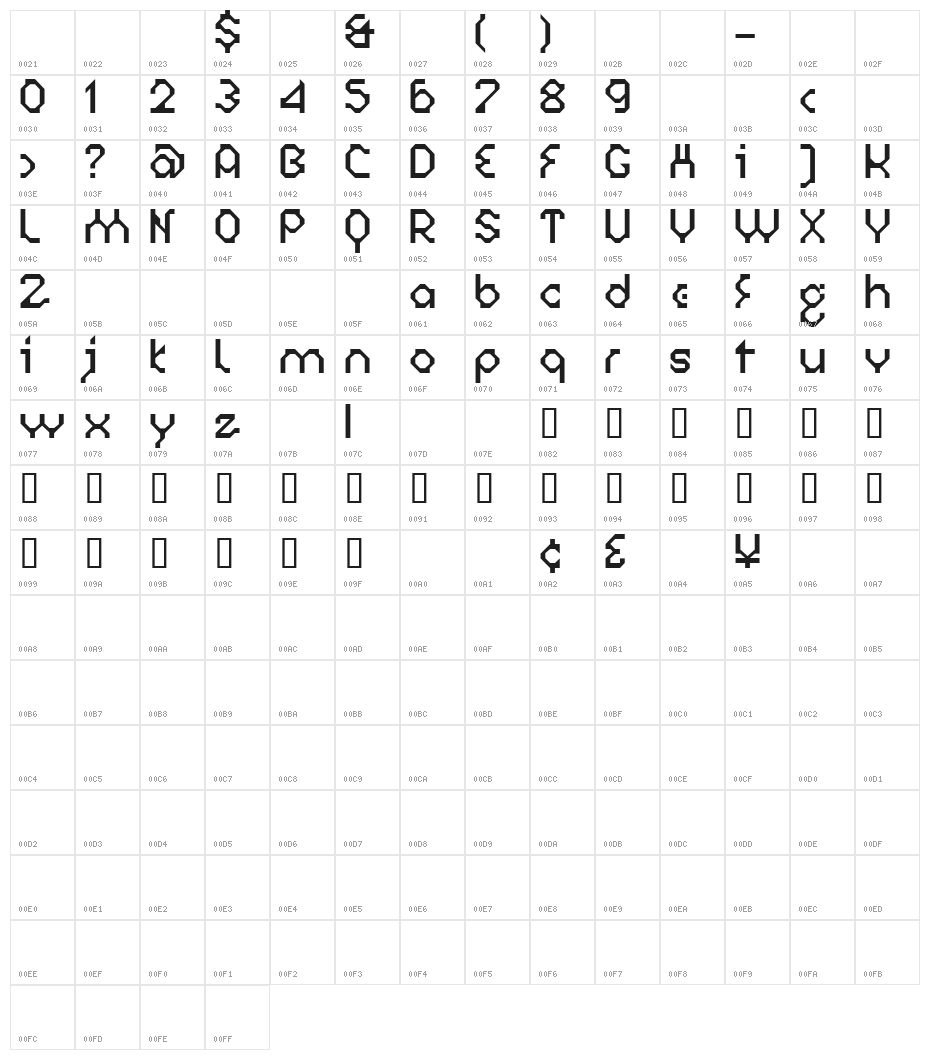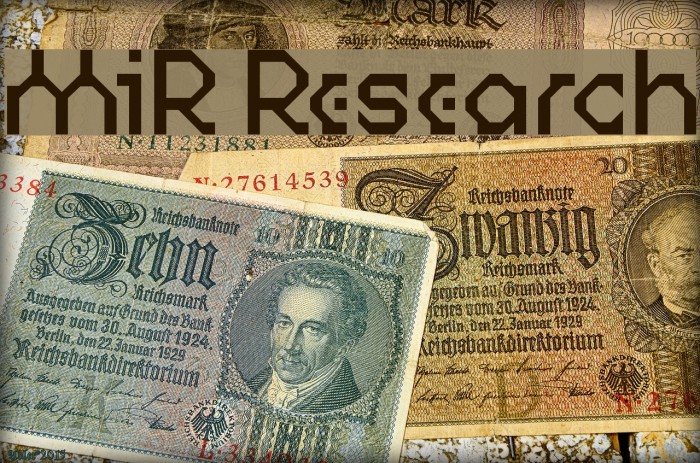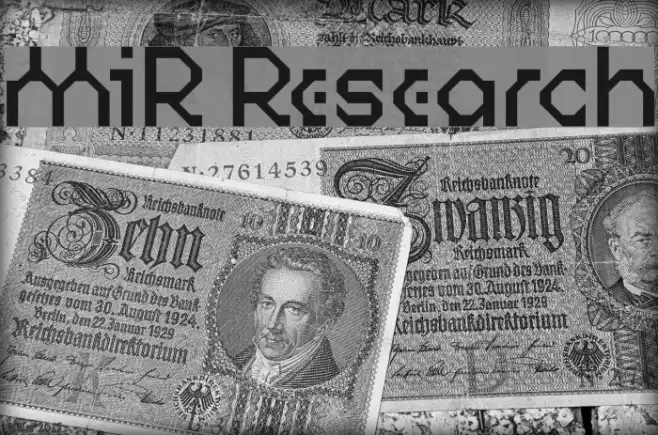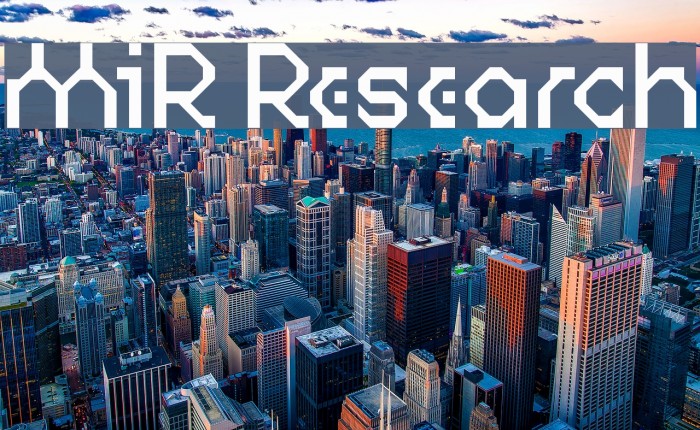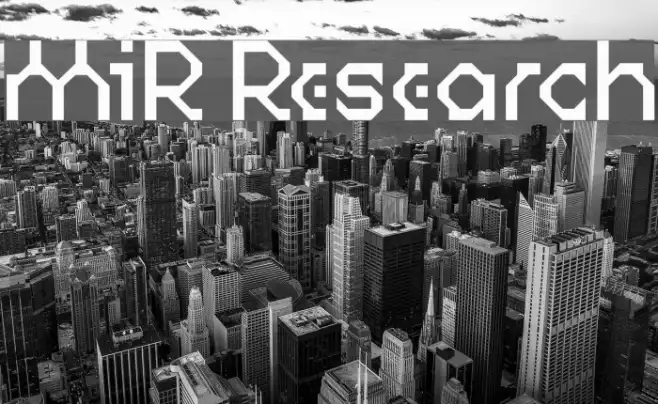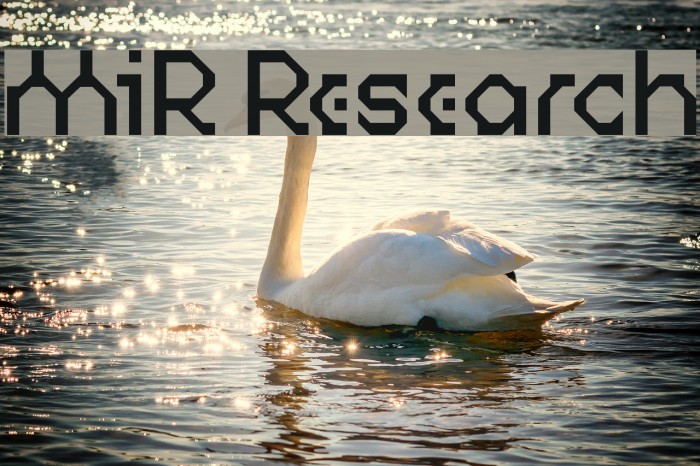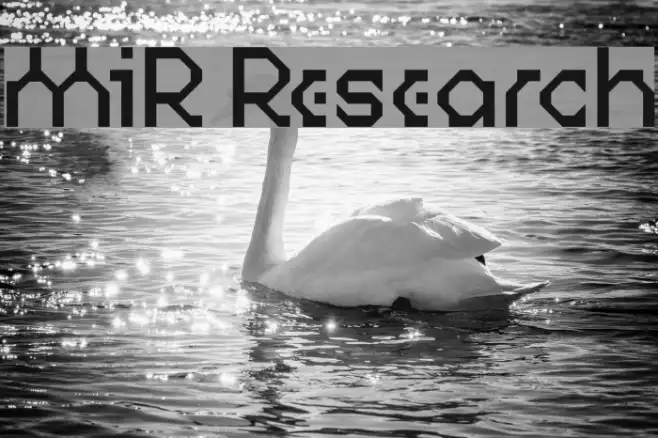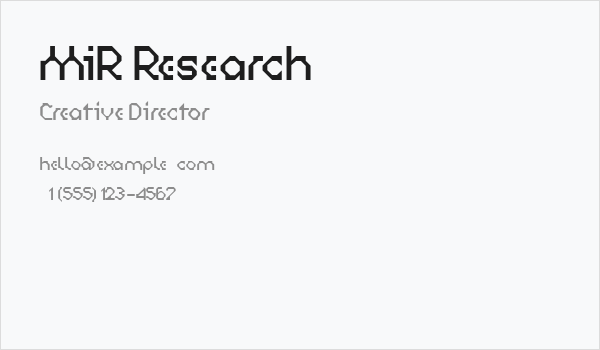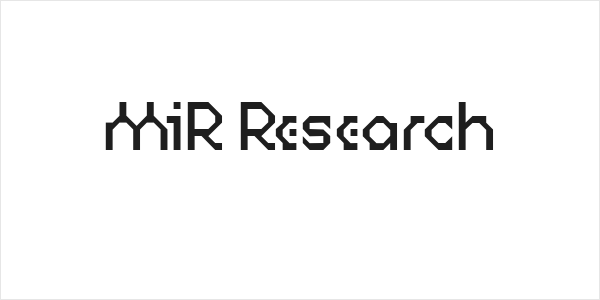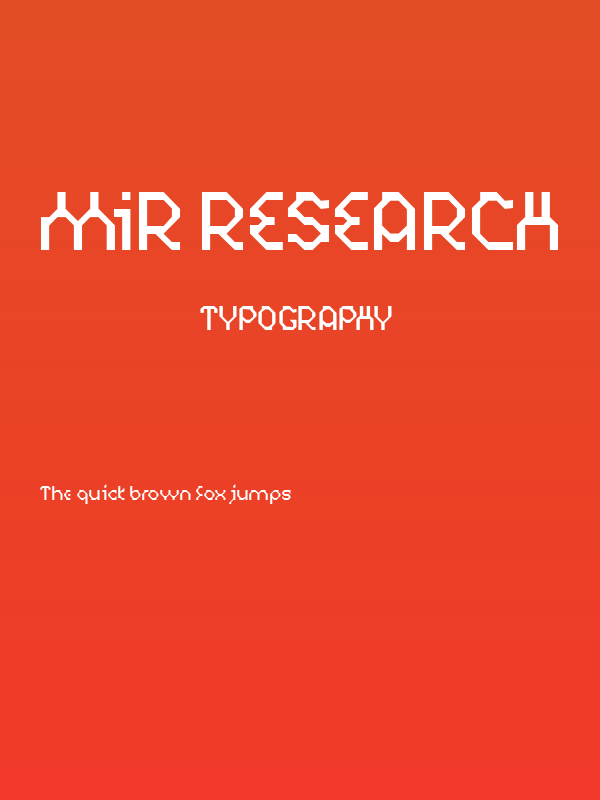
MIR Research Font
MIR Research Description
This font features a bold, geometric design with sharp angles and a futuristic aesthetic. The characters are constructed with a consistent thickness, creating a uniform appearance across both uppercase and lowercase letters. The numbers and special characters maintain the same angular style, contributing to a cohesive look. The font's unique structure makes it stand out, with each character having a distinct, edgy form that suggests a modern, tech-inspired theme. The overall design is clean and uncluttered, making it suitable for projects that require a strong visual impact.
| Proposed Projects | Ideal for technology branding, video game titles, sci-fi book covers, and digital media. |